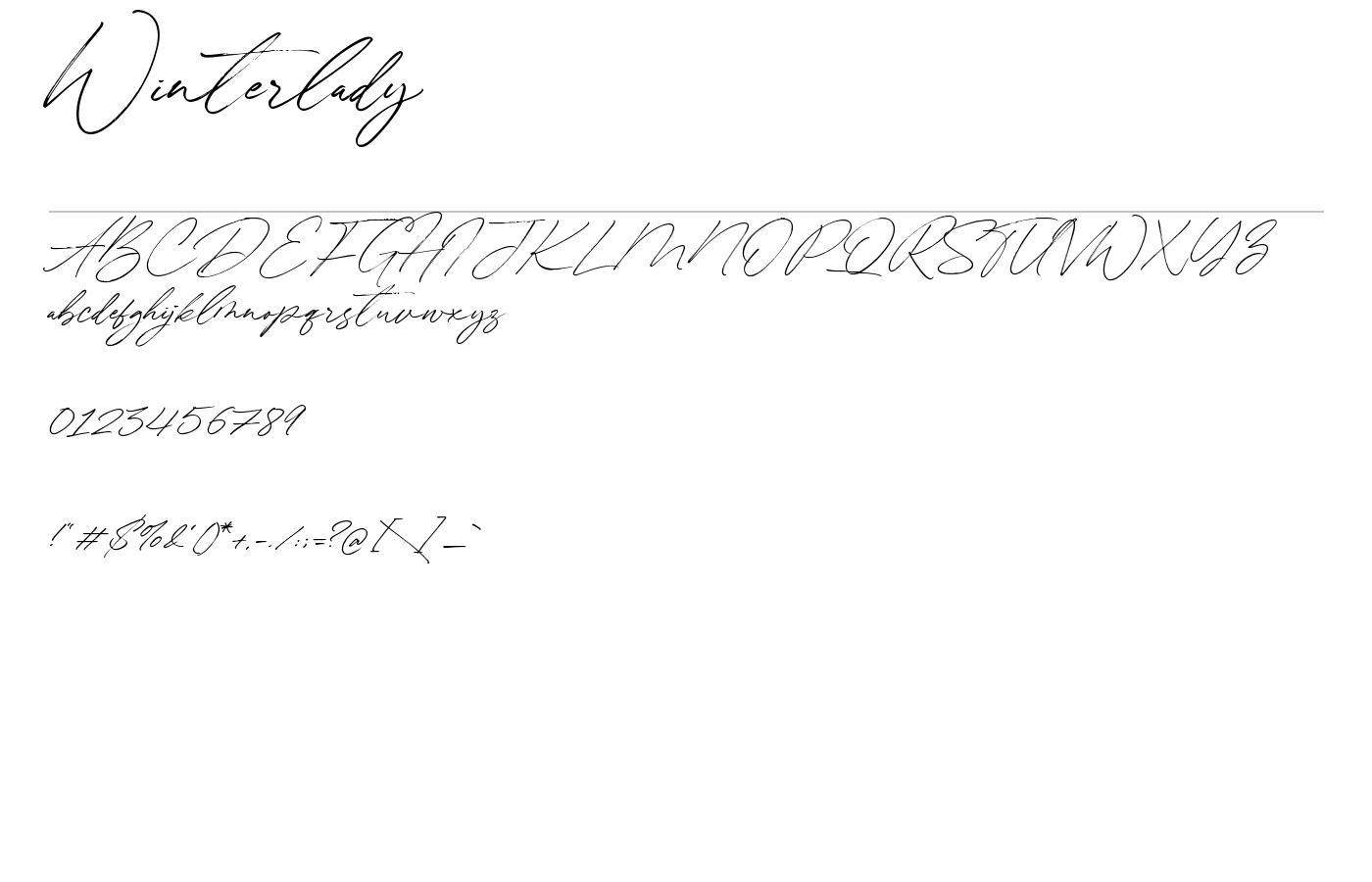
Winterlady is a delicate, handwritten script font characterized by its thin, flowing strokes and elegant, slightly elongated letterforms. Its airy, graceful style conveys a sophisticated yet approachable personality, making it ideal for wedding invitations, personal branding, and feminine luxury designs. This font shines in uses where a touch of refined, natural charm is desired.
Winterlady Font
About Winterlady Font